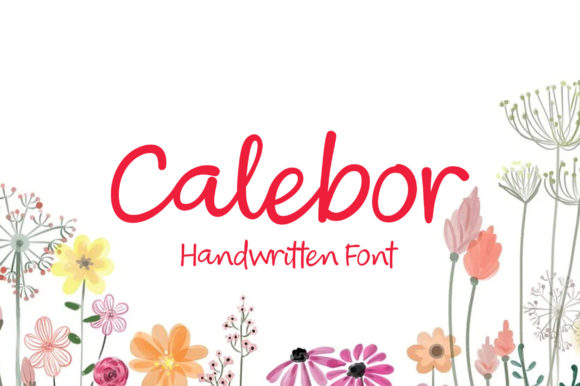
The Calebor Font: A Quirky Script to Elevate Your Designs
An Honest Review of Calebor Font
- ✨ Unique and quirky style that adds personality to any design
- ✅ Highly versatile and adaptable to various design projects
- 🌈 Beautifully crafted with attention to detail and aesthetics
While Calebor is an amazing font, there are a few things to keep in mind:
- ⚠️ Some users might find the font a bit too ornate or busy for certain projects
The Story Behind Calebor Font
Calebor was designed with the intention of creating a font that was both beautiful and quirky. The designer aimed to craft a script that would add personality to any design, while still being versatile and adaptable. The result is a font that is both elegant and playful, perfect for a wide range of design projects.
| Font Name | Calebor Font |
| Author | Nico Muslib |
| What makes Calebor font unique? | Calebor’s unique blend of natural and quirky elements sets it apart from other fonts. |